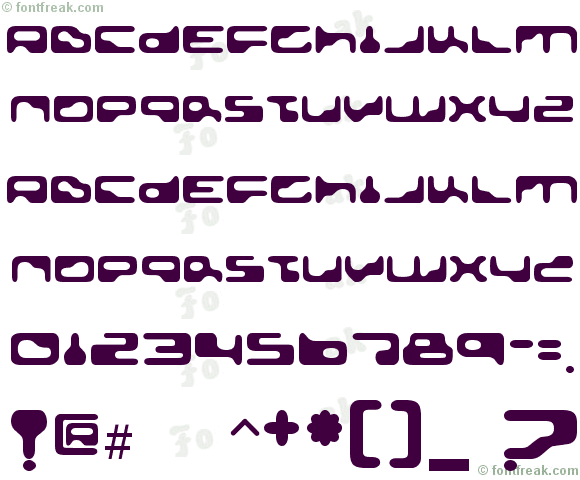
Golden Girdle
Golden Girdle is a distinctive display font designed by Ray Larabie, released in 1997 and later updated in 2004. As a unique decorative typeface, it captures attention with its bold, geometric forms and playful character. The font features a medium stroke weight with moderate contrast, allowing for legibility while maintaining an artistic flair. Its rounded edges give it a friendly and modern appearance, making it suitable for various creative projects.
Golden Girdle is versatile and can be effectively used in a range of applications. It works beautifully for wedding invitations, adding a whimsical touch to the occasion. Additionally, the font can bring life to movie posters, making titles pop with its unique charm. Restaurant menus can also benefit from the font's playful nature, inviting diners with a fresh and engaging presentation. Moreover, it serves well in branding for small businesses looking to establish a bold identity. The target audience for this font includes graphic designers, small business owners, and content creators seeking a distinctive typeface that stands out.
What sets Golden Girdle apart is its ability to blend fun with functionality. Its unique visual style not only captures the essence of creativity but also maintains readability, making it an excellent choice for projects that demand both flair and clarity. Whether you're designing for print or digital media, the Golden Girdle font free download offers an opportunity to elevate your work with a touch of personality. With its charming aesthetic and wide-ranging applications, this font is sure to make a lasting impression on audiences.